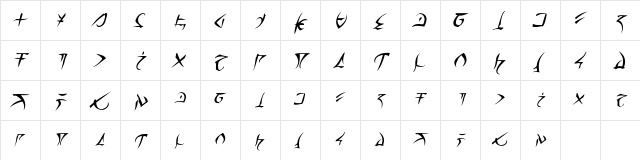
Barazhad Italic
| Foundry | Neale Davidson |
| Designer | Neale Davidson |
Design Context for Barazhad Typeface
Barazhad is a composed and adaptable typeface that performs quietly and consistently across a wide range of design contexts. The slanted form adds forward momentum and visual energy.
Pro Tip: Use Barazhad for emphasis, pull quotes, and subheadings where its slanted energy can add rhythm to the layout.